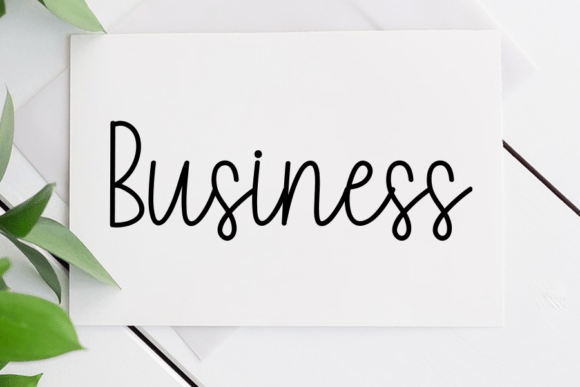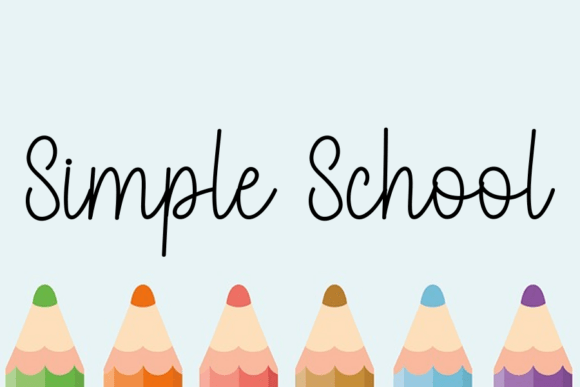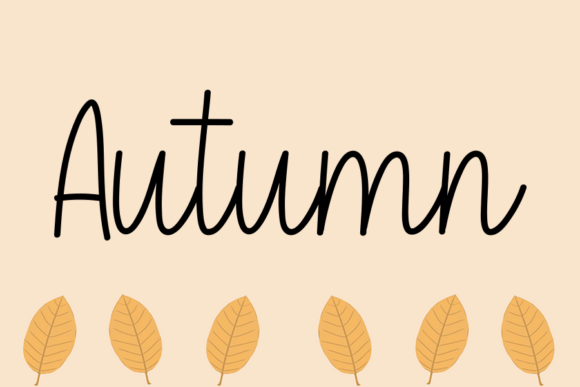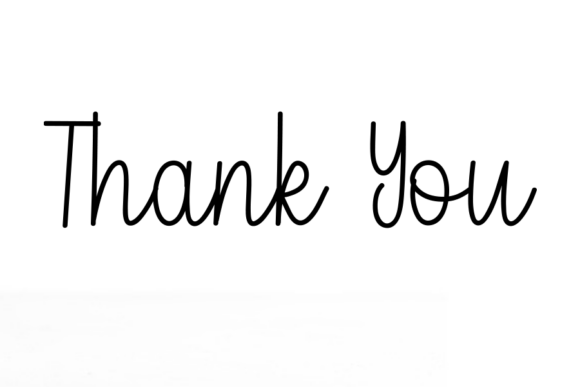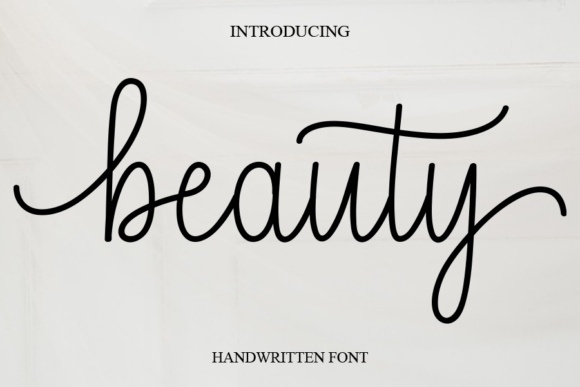
Introducing Beauty Font: The Sweet and Cursive Handwritten Font for Elegant Designs
Are you looking for a font that can add a touch of elegance and romance to your designs? Look no further than Beauty Font, a sweet and cursive handwritten font that is perfect for a variety of design projects. With its gentle and flowing curves, Beauty Font is sure to make your designs stand out and leave a lasting impression.
What Makes Beauty Font So Special?
Beauty Font is a unique and versatile font that is designed to add a joyful and romantic touch to any design project. Its cursive and handwritten style gives it a personal and elegant feel that is perfect for a wide range of applications, from branding and logos to wedding invitations and greeting cards.
One of the things that sets Beauty Font apart is its ability to convey a sense of sophistication and elegance while still feeling casual and approachable. This makes it perfect for designers who want to create designs that are both refined and relatable.
Beauty Font is a versatile font that can be used for a wide range of design projects, including:
- Branding: Use Beauty Font to create a unique and memorable brand identity that sets your business apart.
- Logos: Create a stunning logo that showcases your brand’s personality and style.
- Wedding Invitations: Add a touch of romance and elegance to your wedding invitations and stationery.
- Greeting Cards: Create beautiful and heartfelt greeting cards for any occasion.
- Fashion: Use Beauty Font to create stunning fashion designs, including lookbooks and marketing materials.
- Marketing Promotion: Add a touch of sophistication and elegance to your marketing materials, including brochures, flyers, and posters.
Why Choose Beauty Font?
There are many reasons why Beauty Font is the perfect choice for your design projects. Here are just a few:
- Elegant and Refined: Beauty Font has a sophisticated and elegant feel that is perfect for designs that require a touch of refinement.
- Versatile: Beauty Font can be used for a wide range of design projects, from branding and logos to wedding invitations and greeting cards.
- Easy to Read: Beauty Font is clear and easy to read, making it perfect for designs that require a lot of text.
- Unique: Beauty Font has a unique and distinctive style that will set your designs apart from the crowd.
Tips for Using Beauty Font
Here are a few tips for using Beauty Font in your design projects:
- Use it sparingly: Beauty Font is a elegant and refined font, so use it sparingly to add a touch of sophistication to your designs.
- Pair it with other fonts: Beauty Font pairs well with other fonts, so don’t be afraid to experiment with different font combinations.
- Experiment with colors: Beauty Font looks stunning in a variety of colors, so experiment with different colors to find the one that works best for your design.
Beauty Font is a sweet and cursive handwritten font that is perfect for designers who want to add a touch of elegance and romance to their designs. With its versatile and refined style, Beauty Font is sure to make your designs stand out and leave a lasting impression. Whether you’re creating branding materials, logos, wedding invitations, or greeting cards, Beauty Font is the perfect choice.